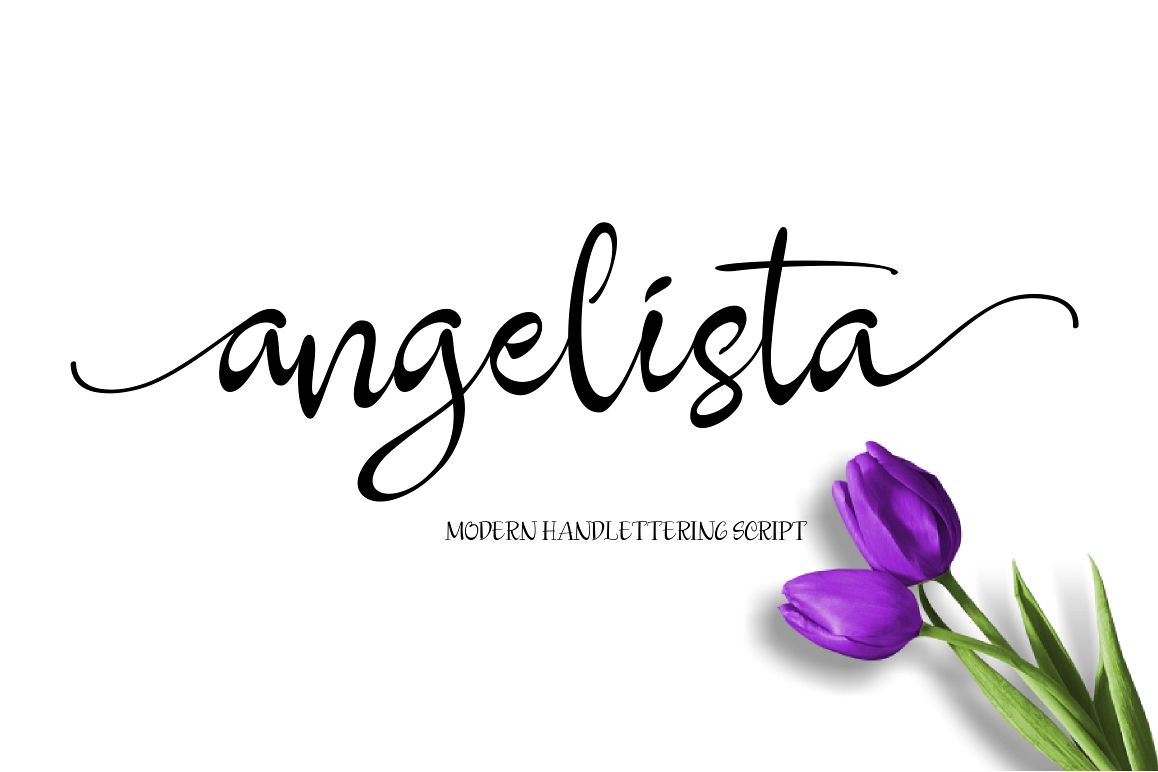
Angelista
Angelista a new fresh & modern script with a sweet calligraphy-style, decorative characters and a dancing baseline! So beautiful on invitation like greeting cards, branding materials, business cards, quotes, posters, and more!
Features Basic Latin A-Z and a-z Numbers Symbols.